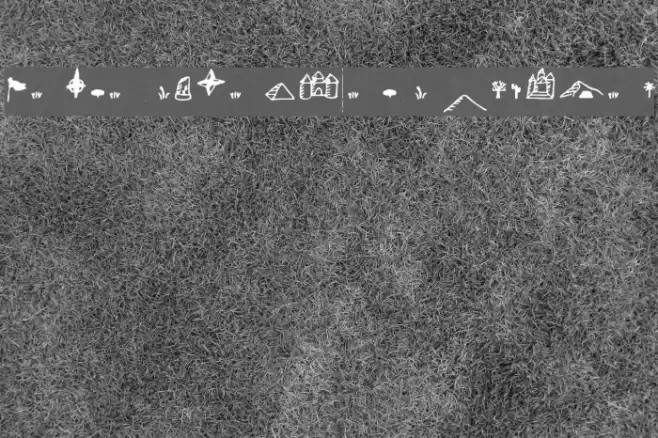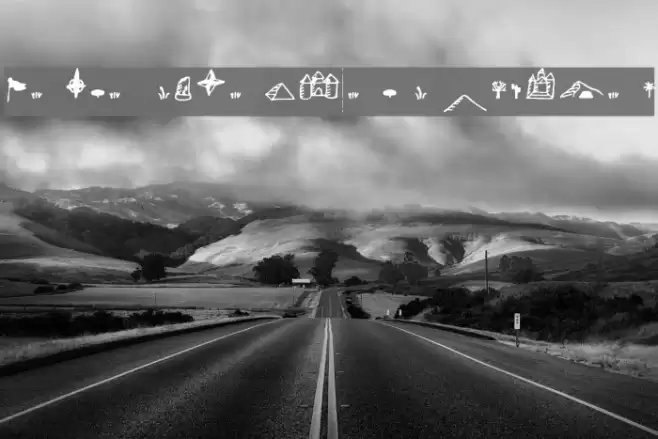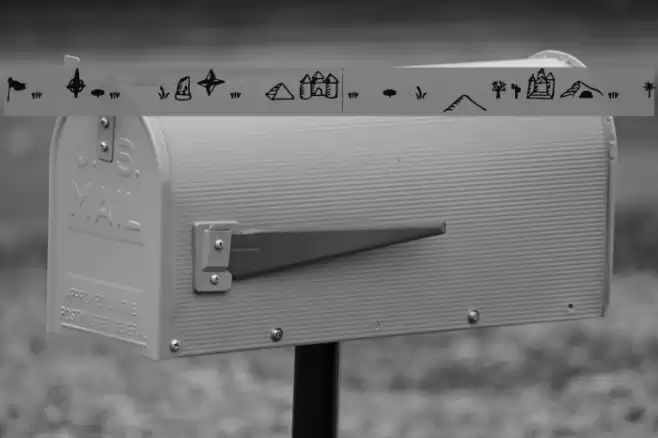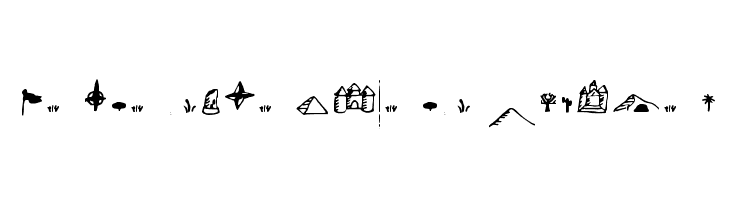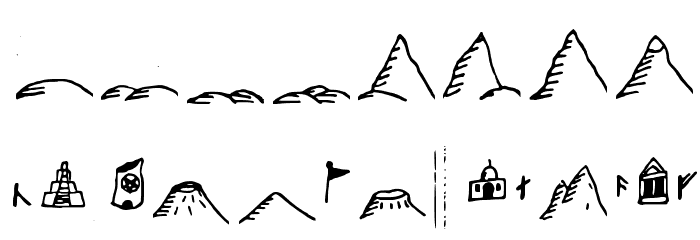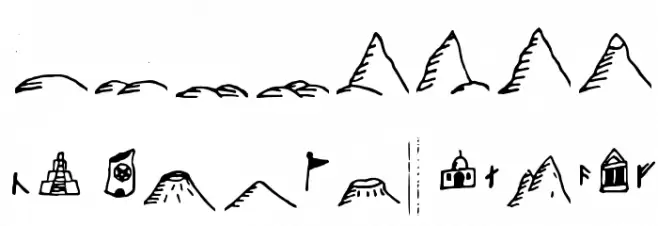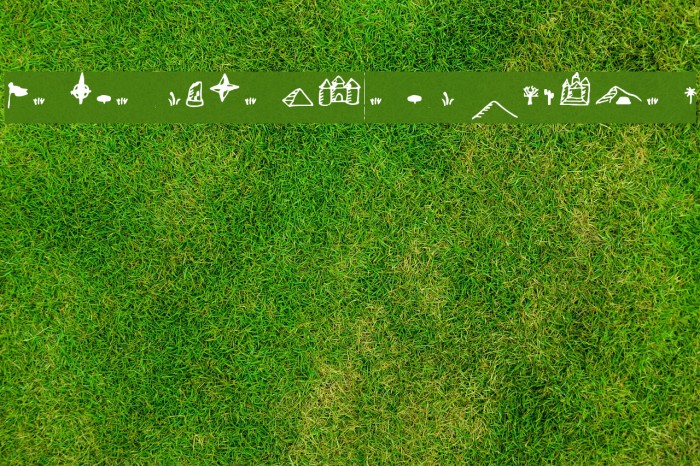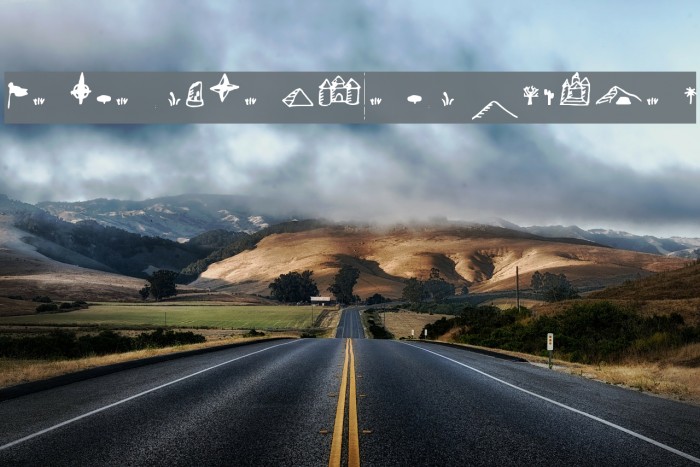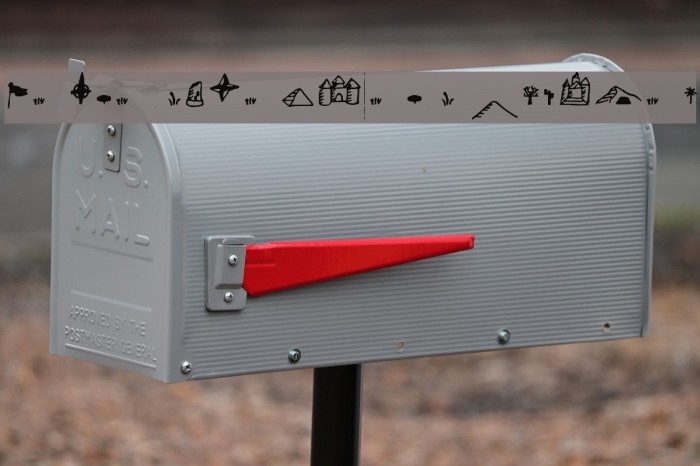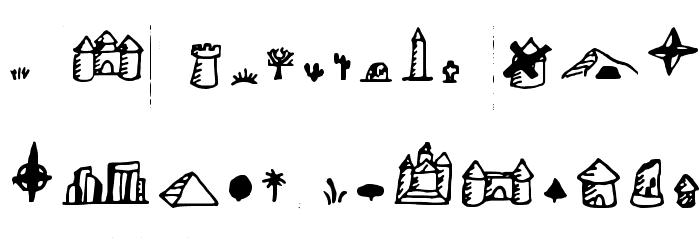
Fantasymapbats Regular Font
Fantasymapbats Regular Description
This is a decorative font that features a collection of whimsical and illustrative icons, perfect for fantasy-themed maps or creative projects. The characters are represented by various symbols such as mountains, castles, flags, and other fantasy elements. Each icon is hand-drawn with a playful and imaginative style, offering a unique way to enhance visual storytelling. The design is intricate yet clear, making it suitable for both digital and print media. The icons are evenly spaced, providing a balanced and cohesive look across different applications.
A decorative font featuring whimsical icons for fantasy-themed maps from Uncategorized fonts.
- Proposed Projects: Ideal for fantasy maps, game design, storybooks, and creative illustrations.